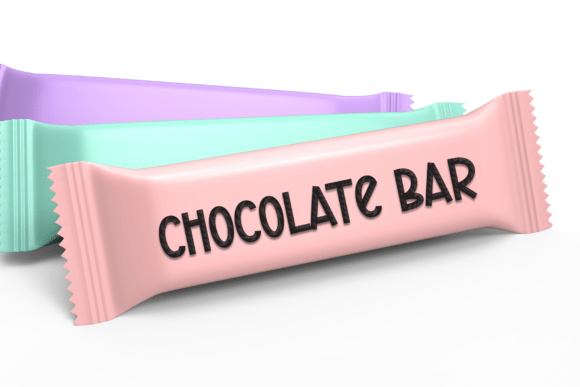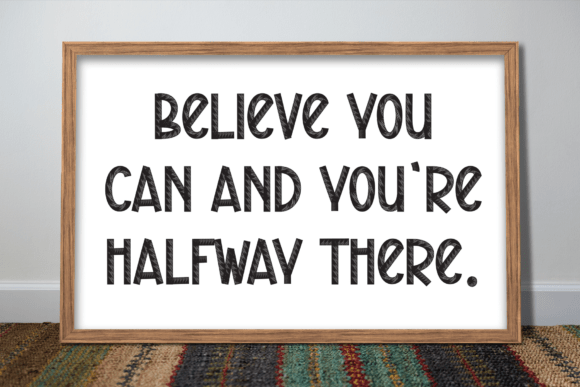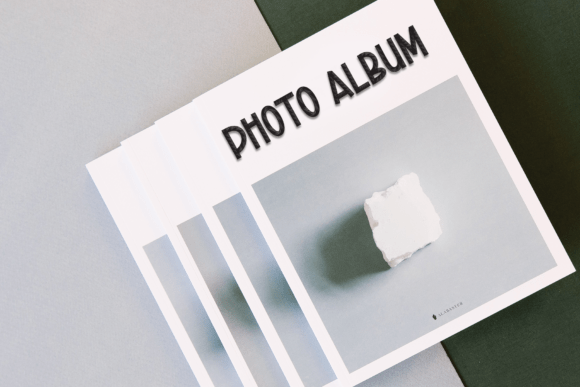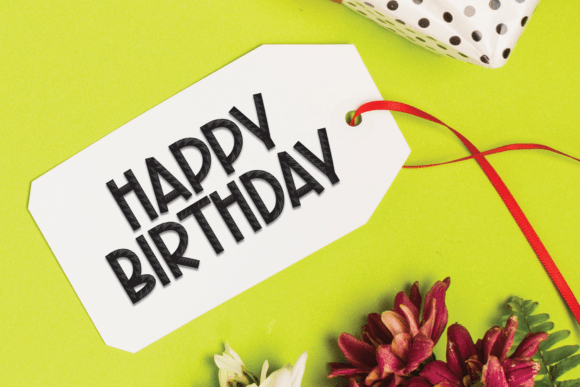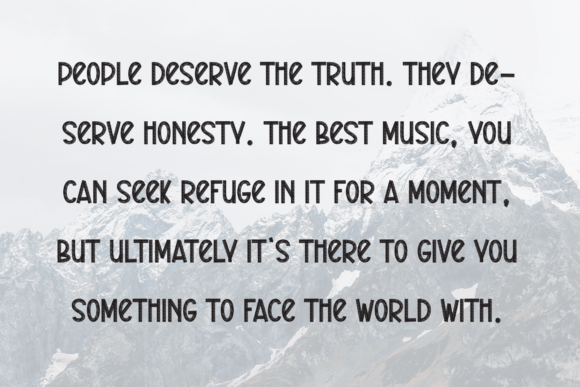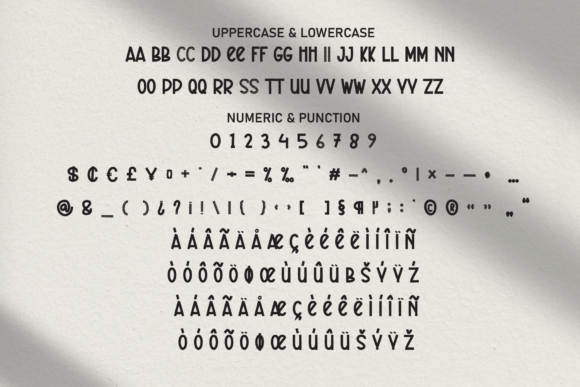
Introduction to Magic Alpabet Font Font
Fonts play a crucial role in design, and the Magic Alpabet Font font is a typeface that brings both character and versatility to any project. Whether you’re working on a branding project, a website, or a print design, the Magic Alpabet Font font offers a unique style that can elevate your work.
Magic Alpabet is a captivating and innovative all-caps display font designed to add a touch of texture and wonder to your creative projects.
Characterized by its sturdy, geometric letterforms filled with a unique hand-sketched hatching pattern, this typeface creates a dynamic visual effect that mimics traditional etching or fine-line illustration I ts bold presence and intricate internal detail make it an exceptional choice for book cover designs, creative posters, artisanal product packaging, and magical or mystical branding.
Key Features of Magic Alpabet Font Font
Why Choose Magic Alpabet Font Font?
The Magic Alpabet Font font is more than just a typeface – it’s a design tool that helps you communicate your message with style and clarity. Its unique character set and versatile design make it suitable for a wide range of applications, from elegant invitations to bold headlines.
With its carefully crafted letterforms and balanced proportions, the Magic Alpabet Font font ensures readability and visual appeal across all mediums.
What makes Magic Alpabet Font font special?
The Magic Alpabet Font font stands out with its unique design, exceptional readability, and versatility across various design applications.